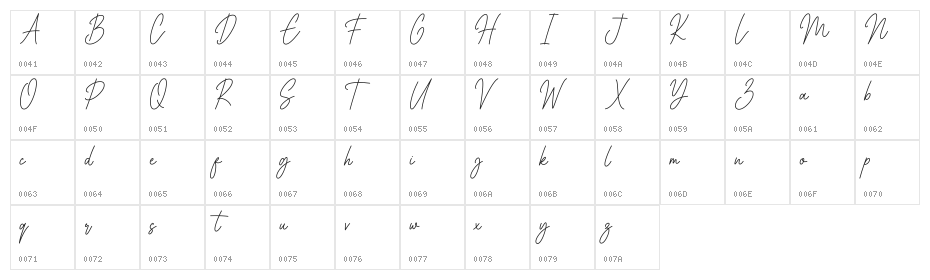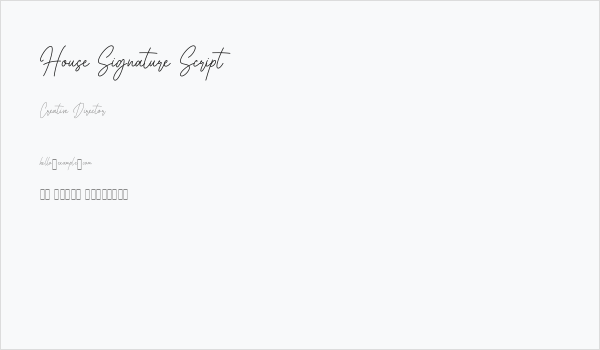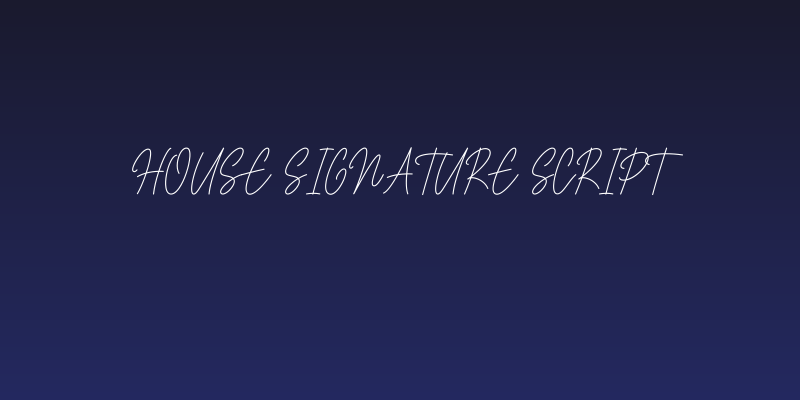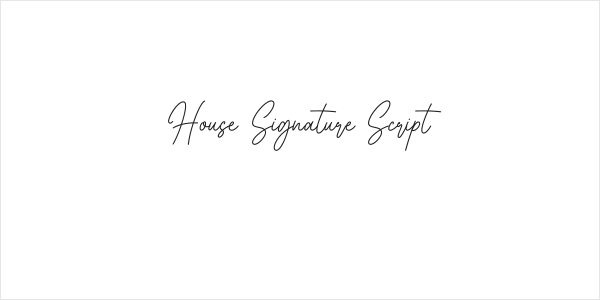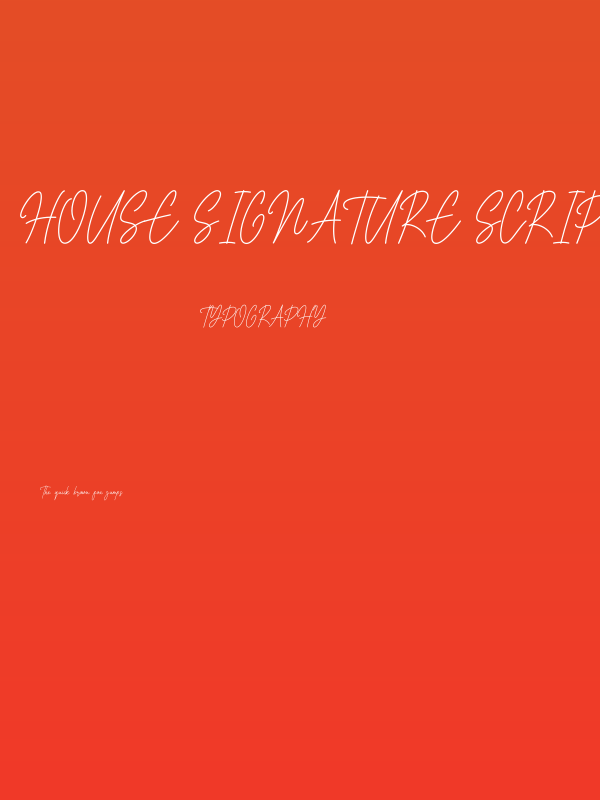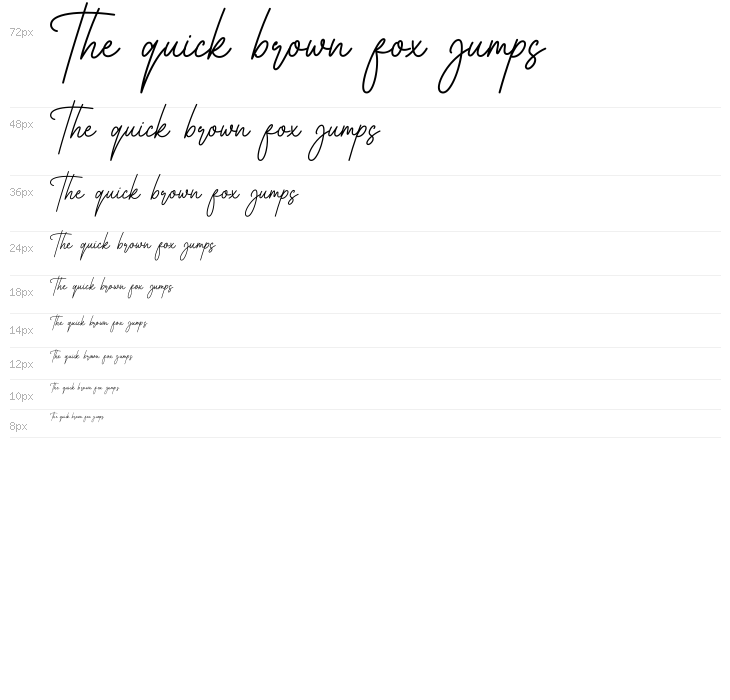
House Signature Script Font
House Signature Script Description
This elegant script font exudes a sense of sophistication and fluidity, characterized by its smooth, flowing lines and cursive style. The letters are interconnected, creating a seamless and continuous appearance that mimics the natural motion of handwriting. The font maintains a consistent slant, adding to its graceful and dynamic look. The uppercase letters are slightly larger, providing a balanced contrast with the more delicate lowercase letters. The overall design is refined, making it suitable for projects that require a personal and artistic touch.
| Proposed Projects | Ideal for wedding invitations, personal branding, elegant stationery, and artistic projects. |